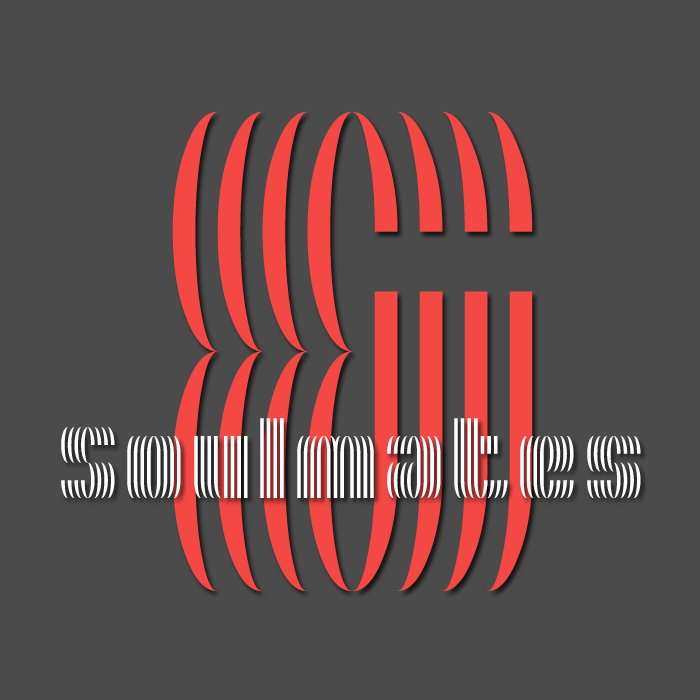
Cool vibrating font!
Does the lowercase s have a sharp middle intentionally?
Crazy cool! WIsh I had thought of this. I love the K's tail. 10/10+fav
Ohhh, nice lines! Rather elegant and neat.
Wow ... it's psychodelic man!!!
It has a delightfully ethereal quality to it.
I'm in love with this one.
Very useable and a lovely flow to it. Not sure where the love connection is, but excellent work nevertheless.